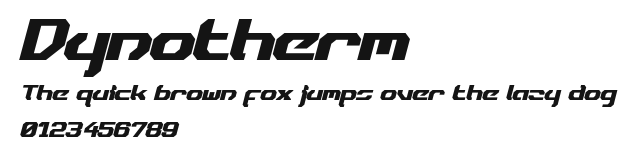
Dynotherm Preview
• Font Name: Dynotherm
• Designer: Neale Davidson
About Dynotherm.ttf
Dynotherm.ttf is a modern, elegant sans-serif font designed for ultimate readability and visual harmony. Perfect for branding, headlines, web design, and print materials.